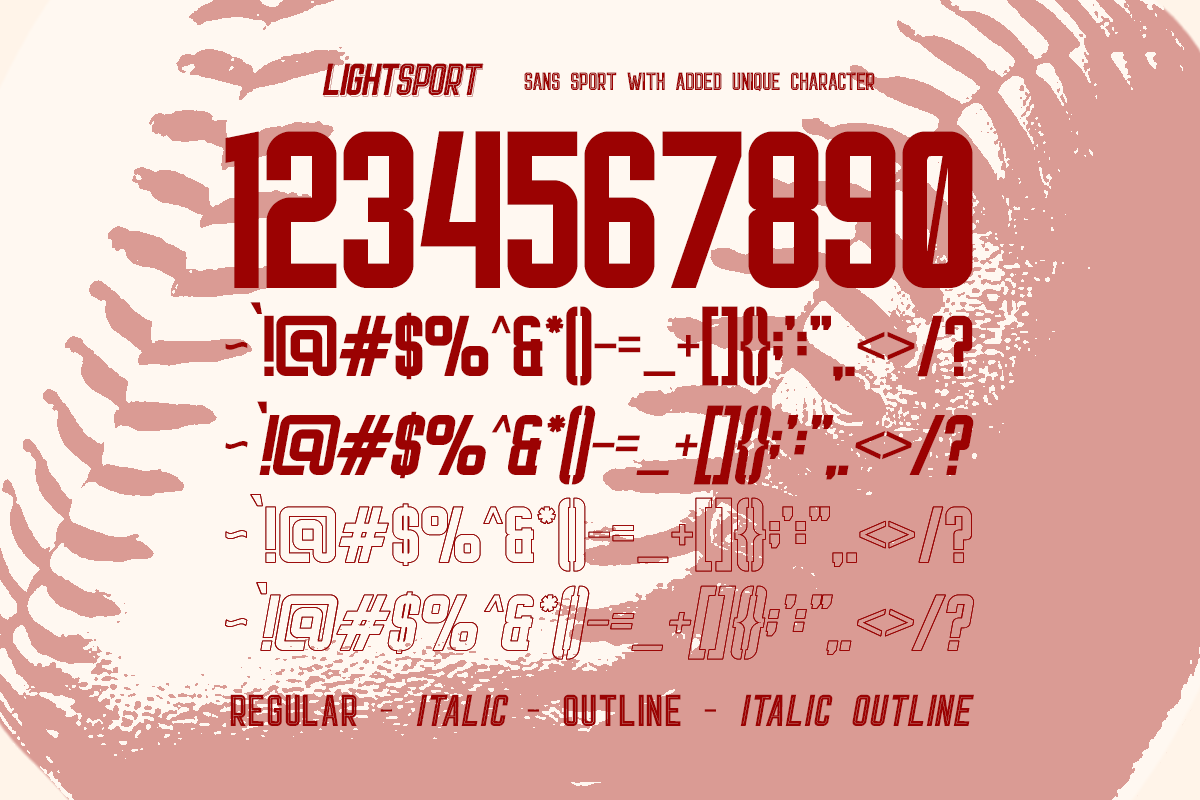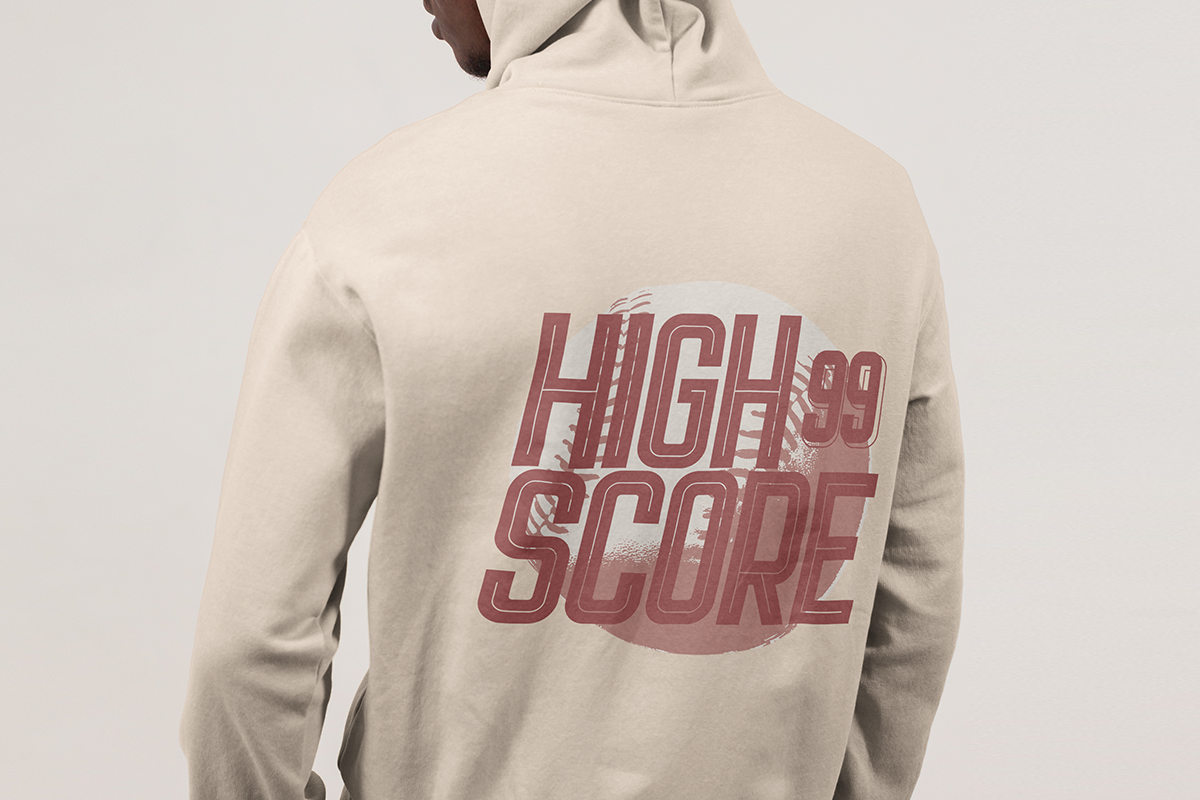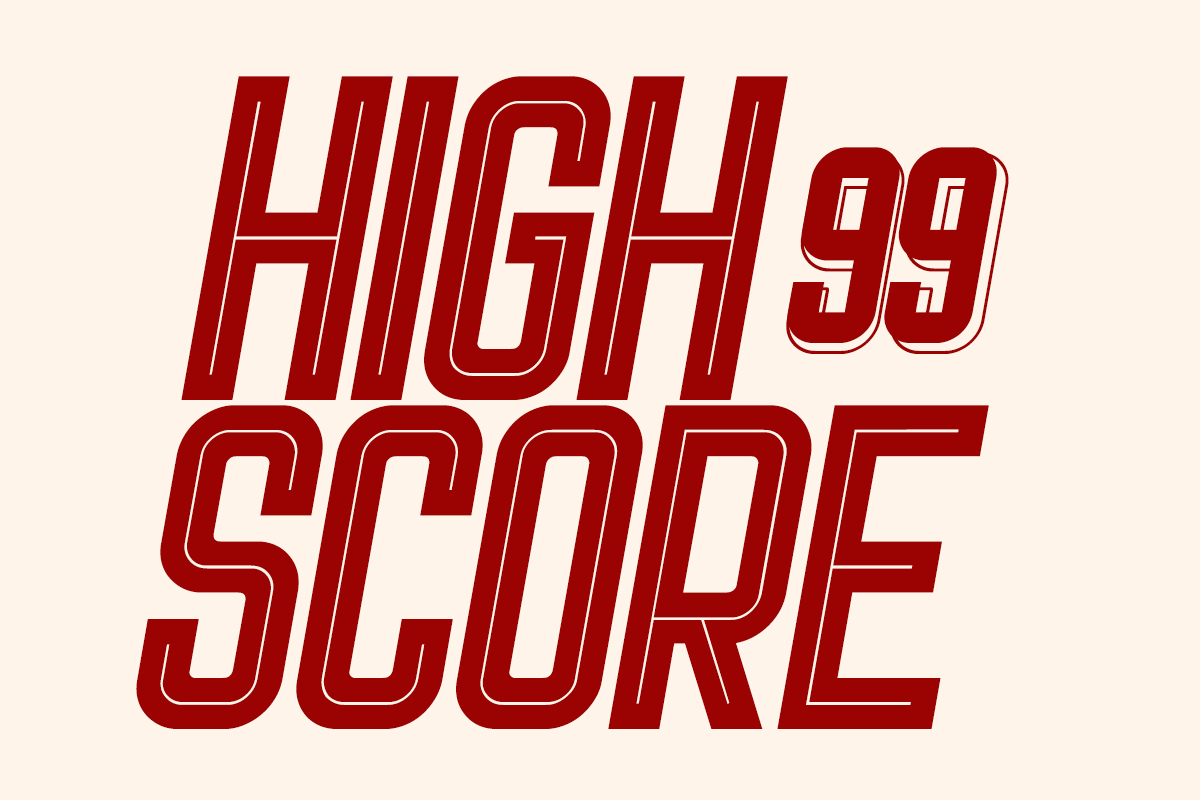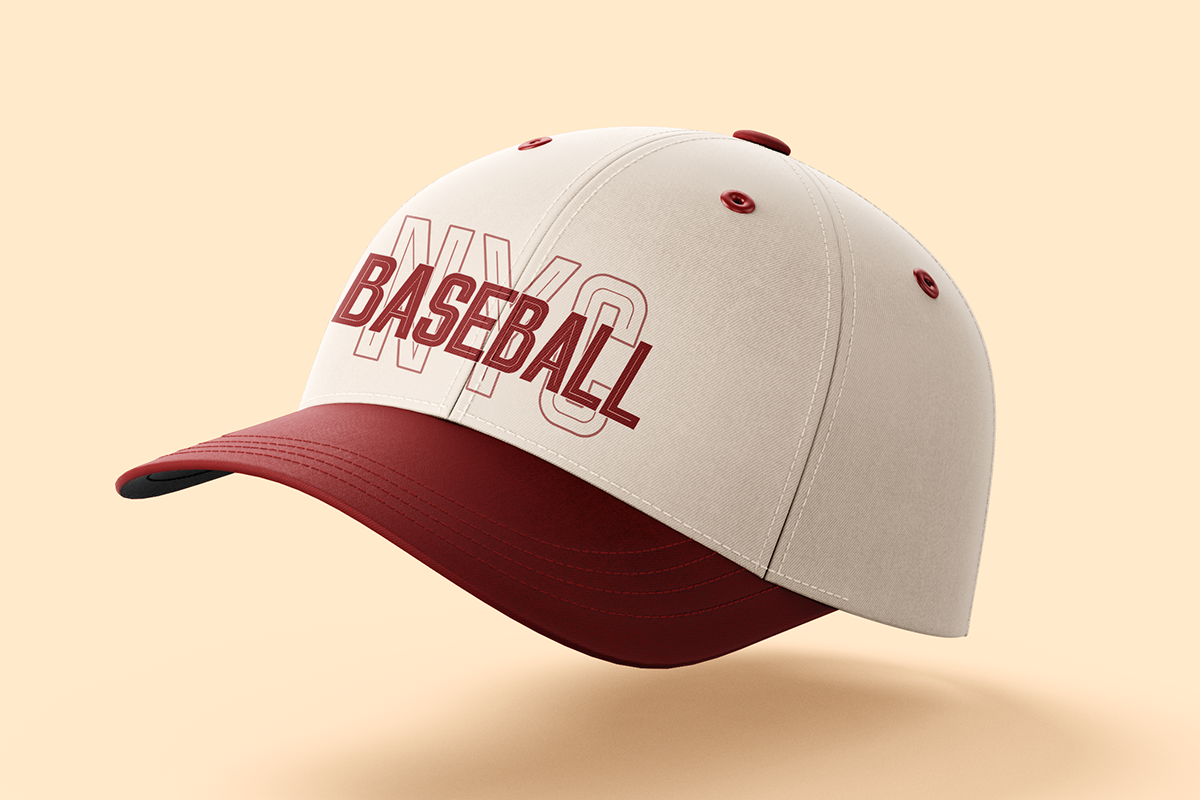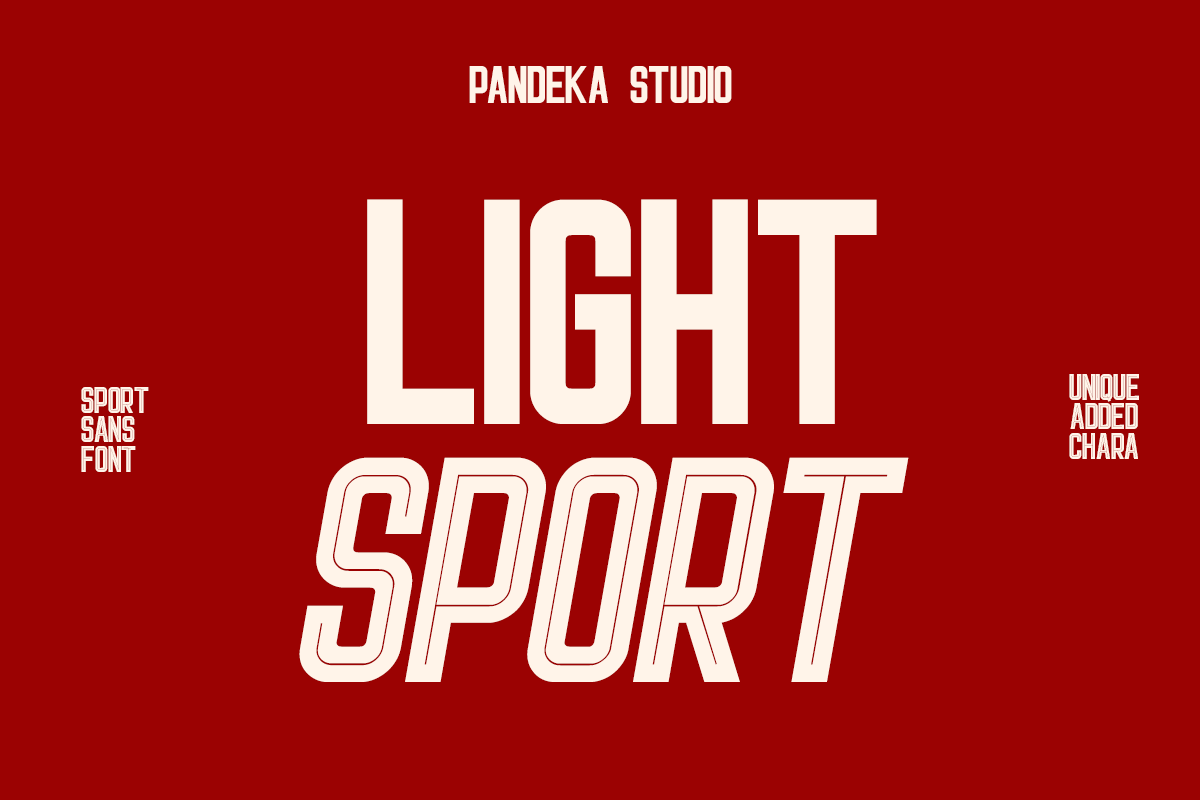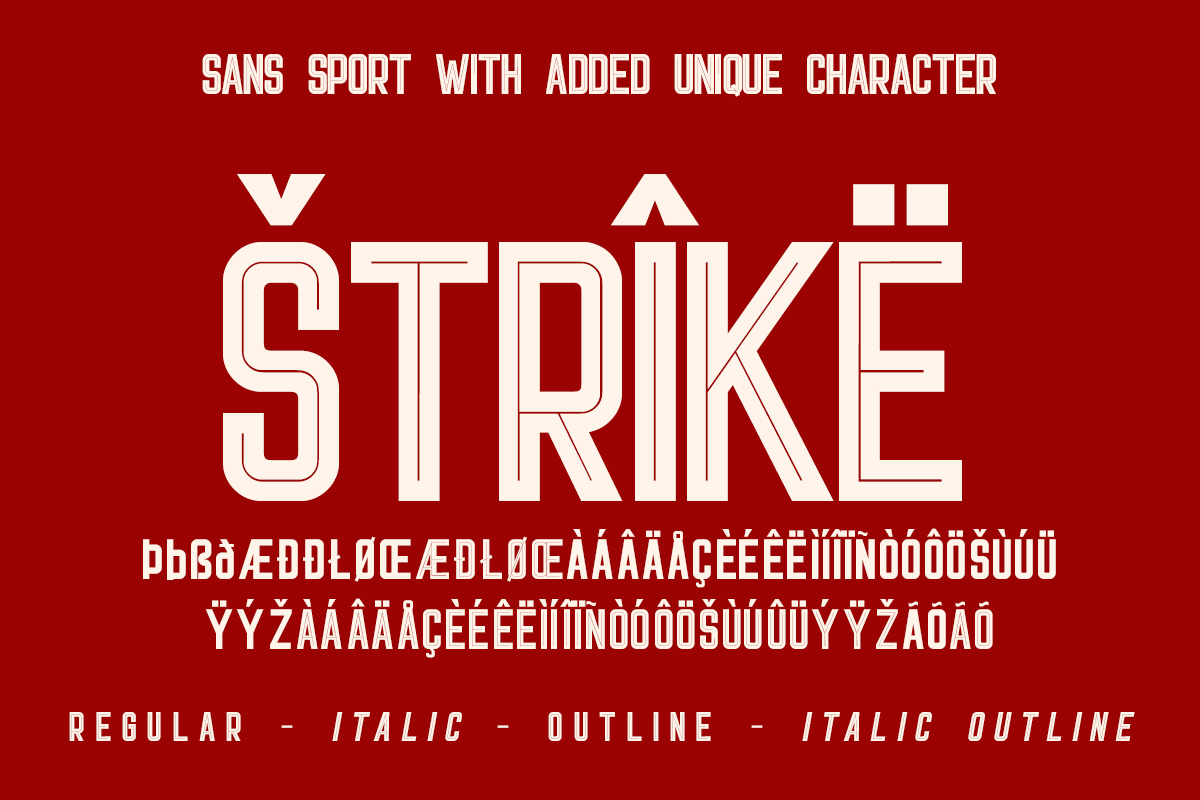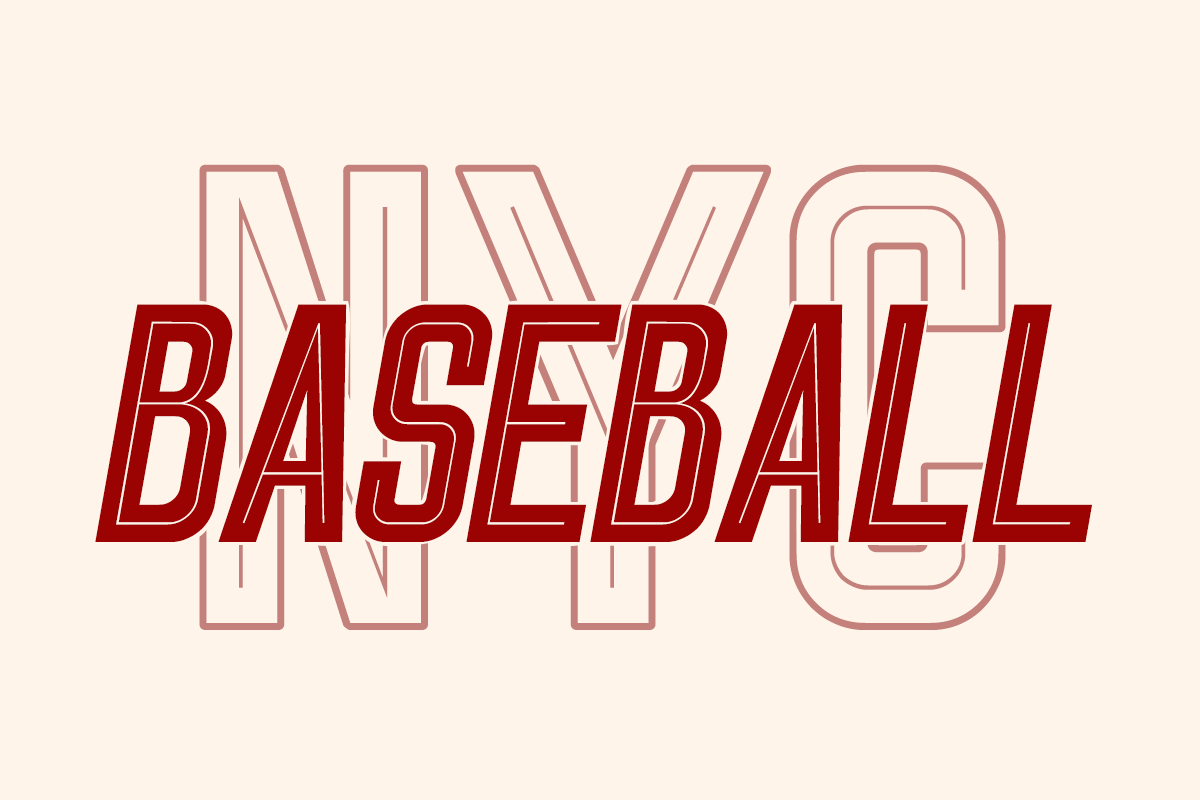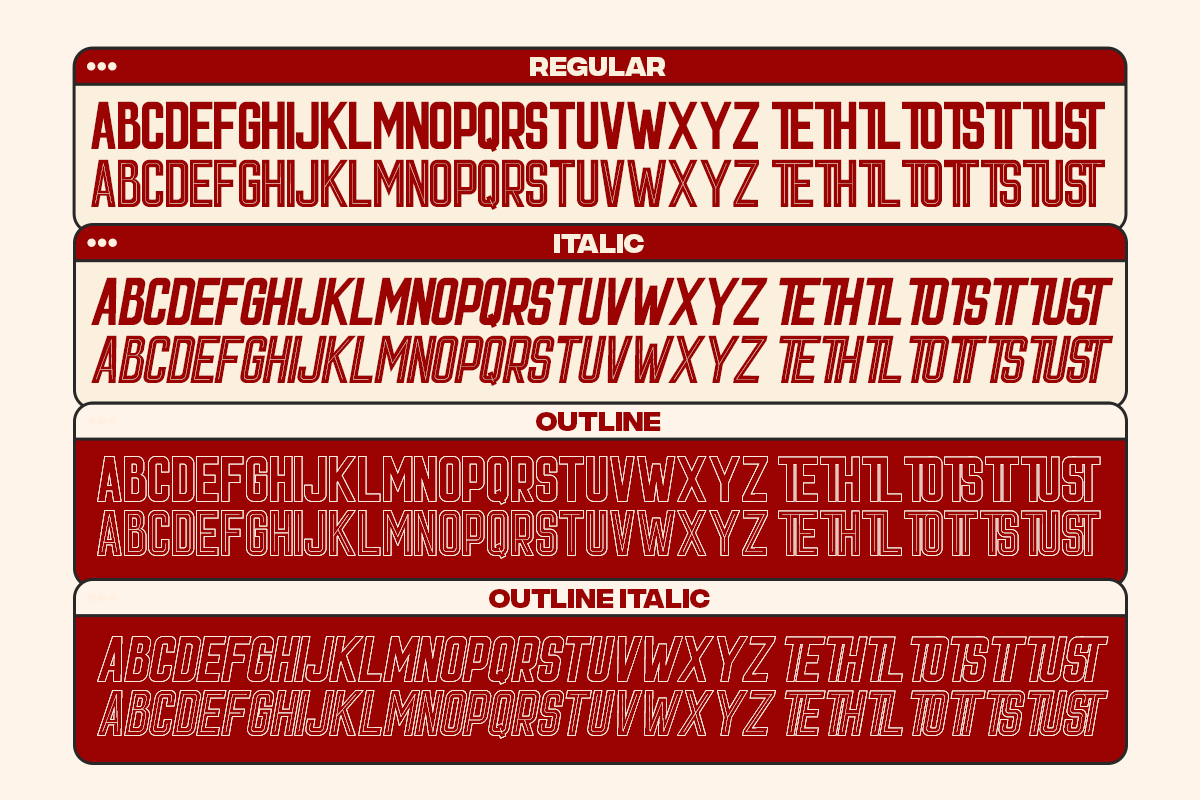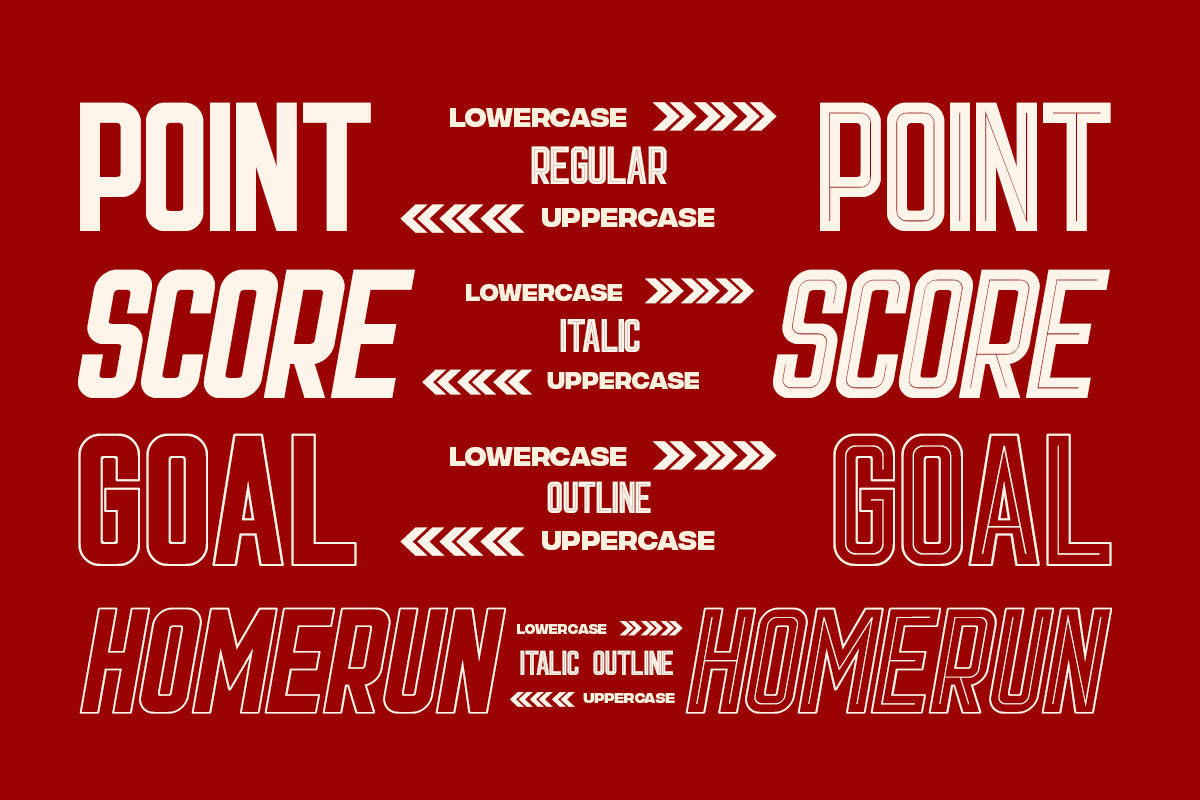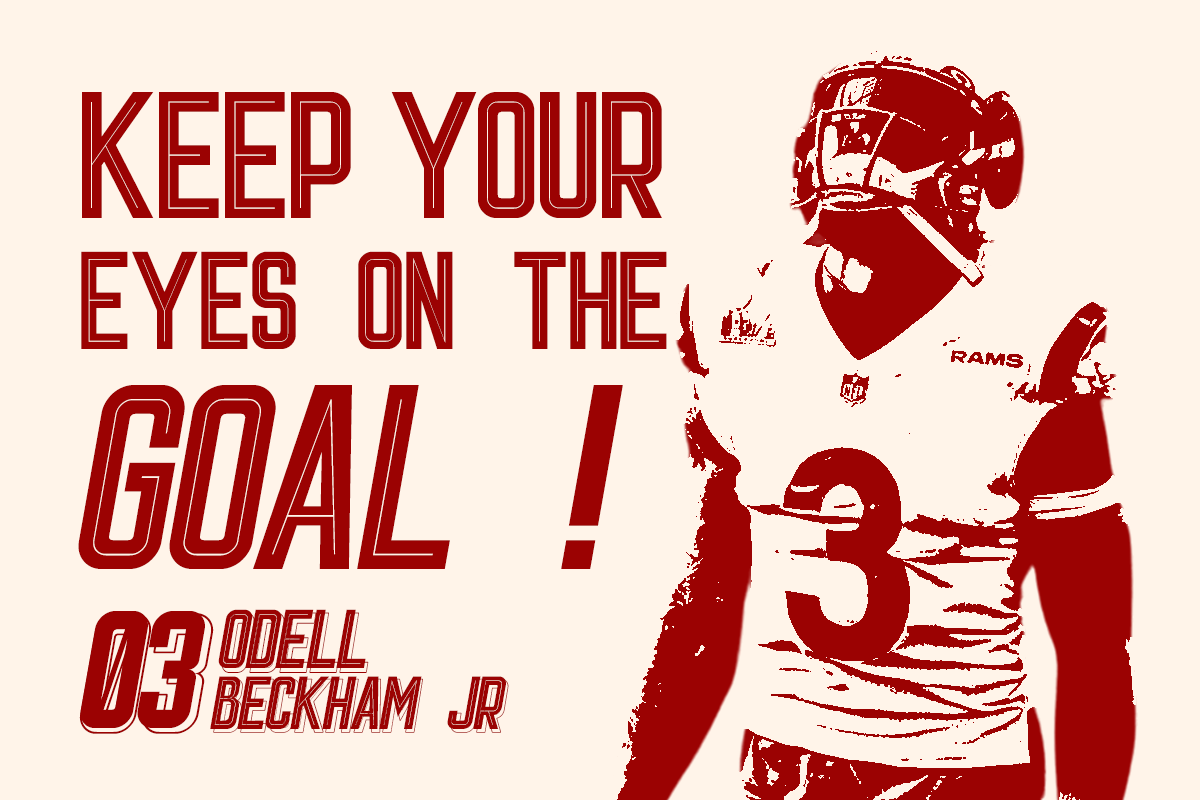
Light Sport - Sport Sans Font
Introducing Light Sport – Sans sport with added unique characters. Ideal for logos, bold action graphics, and sporty designs, Light Sport is perfect for baseball themes, technology, and action-packed projects.
Featuring 4 style (Regular, Outline, Italic, Italic Outline), this font adds dynamic flair to your headlines and titles. Light Sport's unique characters and versatile design bring your ideas to life with modern energy.
- Regular, Outline, Italic, Italic Outline
- Uppercase & Lowecase Letters
- Unique letterforms
- Currencies